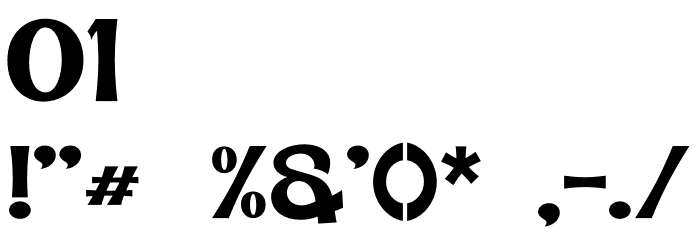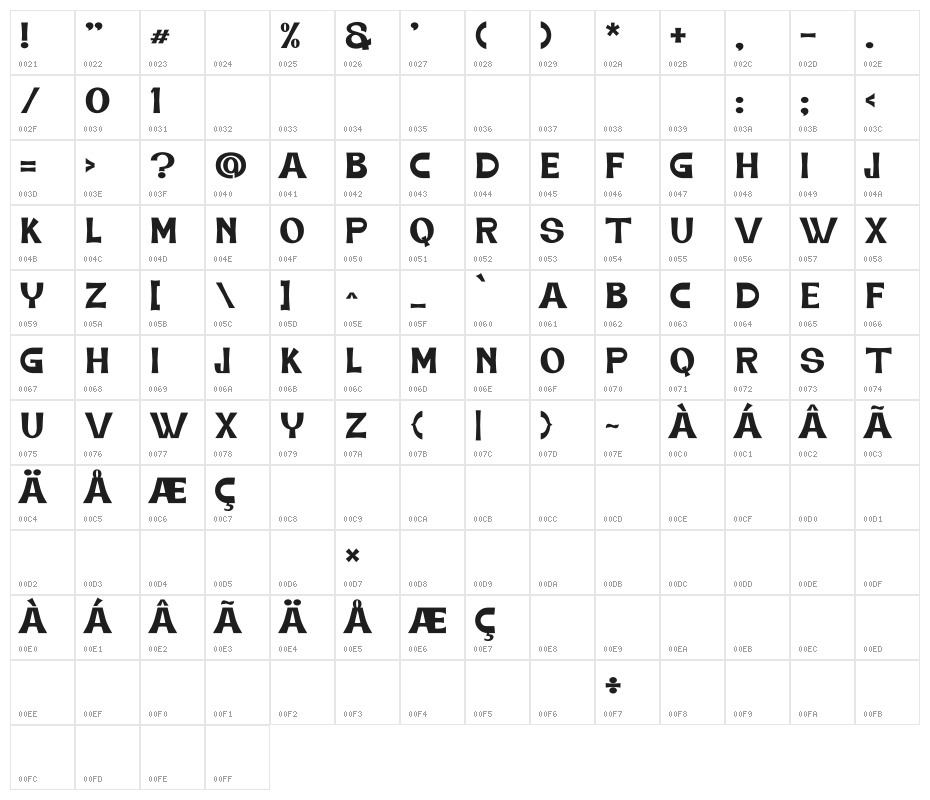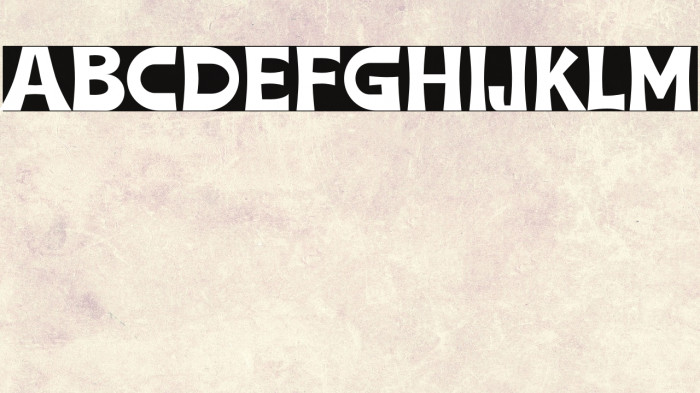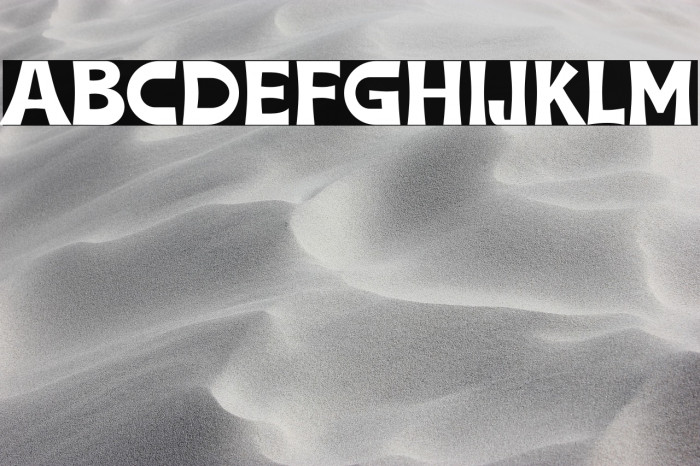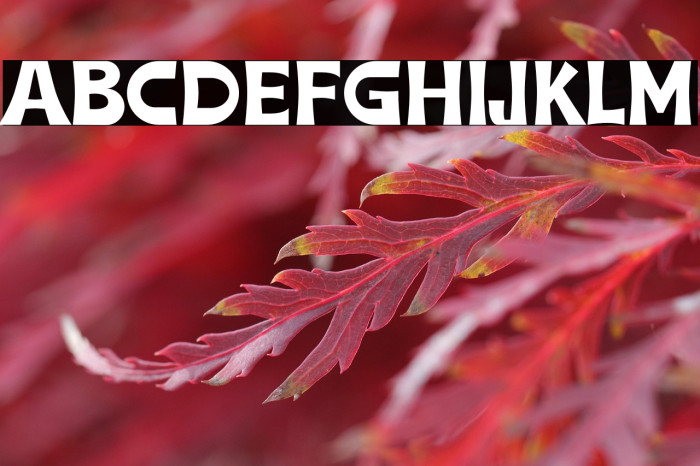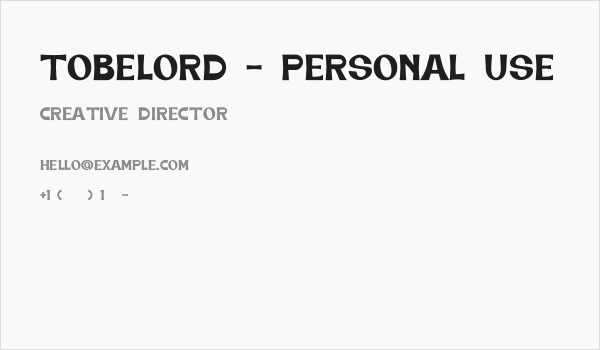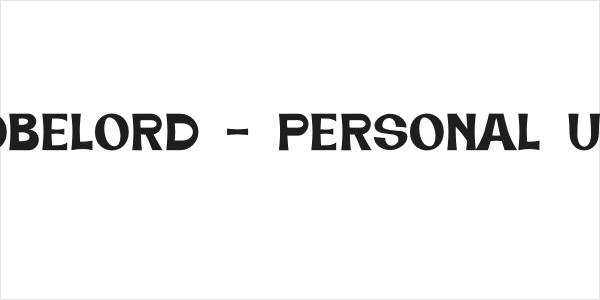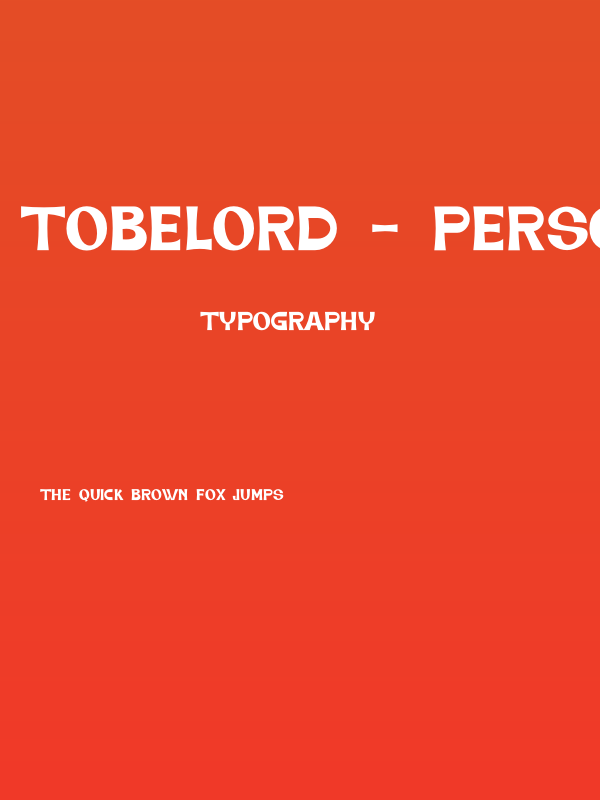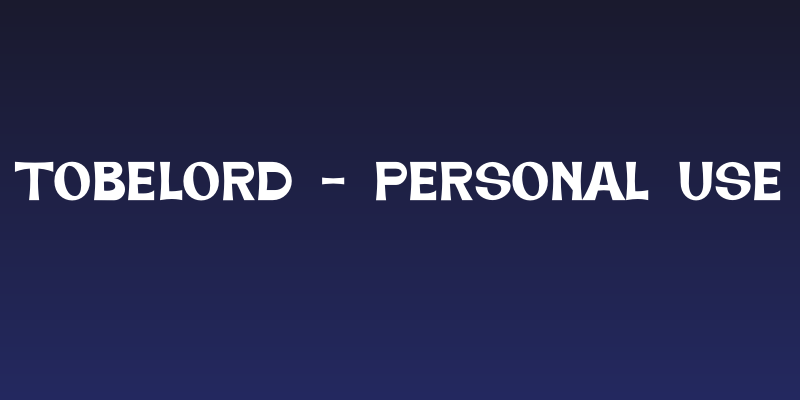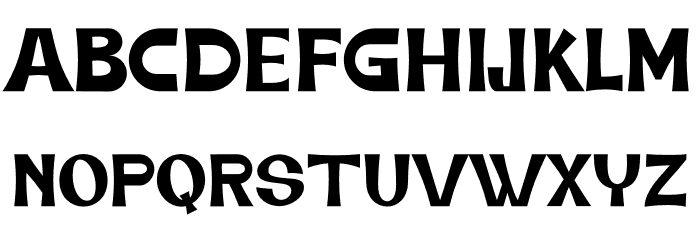
Tobelord - Personal Use Font
Tobelord - Personal Use Description
This font features a bold and striking design with sharp, angular edges and a unique geometric flair. The uppercase and lowercase letters maintain a consistent style, characterized by their thick strokes and distinctive cut-out shapes that add a modern and edgy feel. The numerals and special characters follow the same design principles, ensuring a cohesive look across all text elements. This font's bold presence makes it ideal for attention-grabbing headlines and impactful designs.